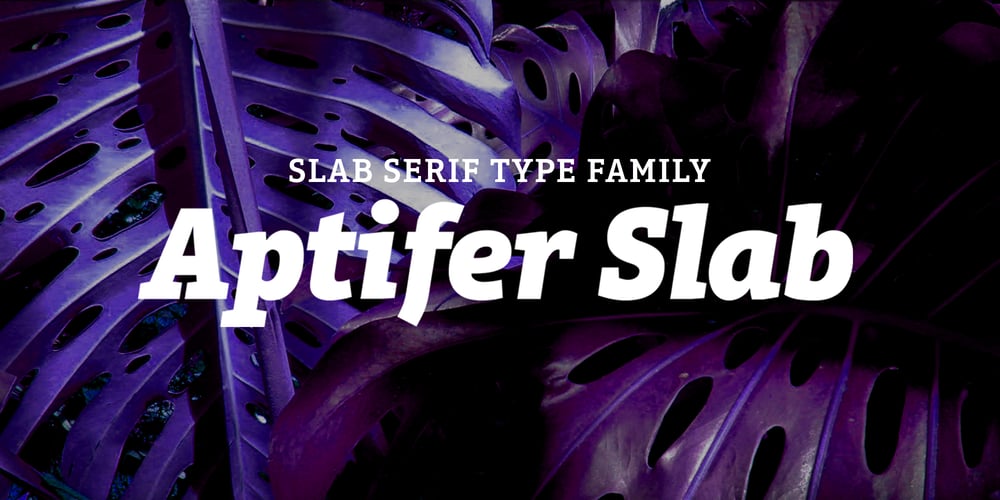
Aptifer Slab Font Family was designed by Mårten Thavenius and published by Linotype. Aptifer Slab contains 14 styles and family package options. Aptifer Sans and Aptifer Slab are two 21st century typeface families created by Mårten Thavenius. Each family has seven weights, in roman and italic respectively, making 28 font styles in total. A heritage from two design traditions can be seen in Aptifer. One is the robust American gothic typefaces, like M. F. Benton’s, from around 1900. This is combined with the openness and legibility that comes from the humanist tradition. The sans serif part of the family, Aptifer Sans, is designed without excessive details disturbing the reading. Its sibling Aptifer Slab with its wedge slab serifs is more eye-catching but still suited for text settings. The italics fit well into the text flow of the roman. They are a bit narrower than the roman and have cursive characteristics. Both Aptifer Sans and Aptifer Slab are highly legible typefaces and can be used both in print and on screen.Featured in: Best Fonts for PowerPoints